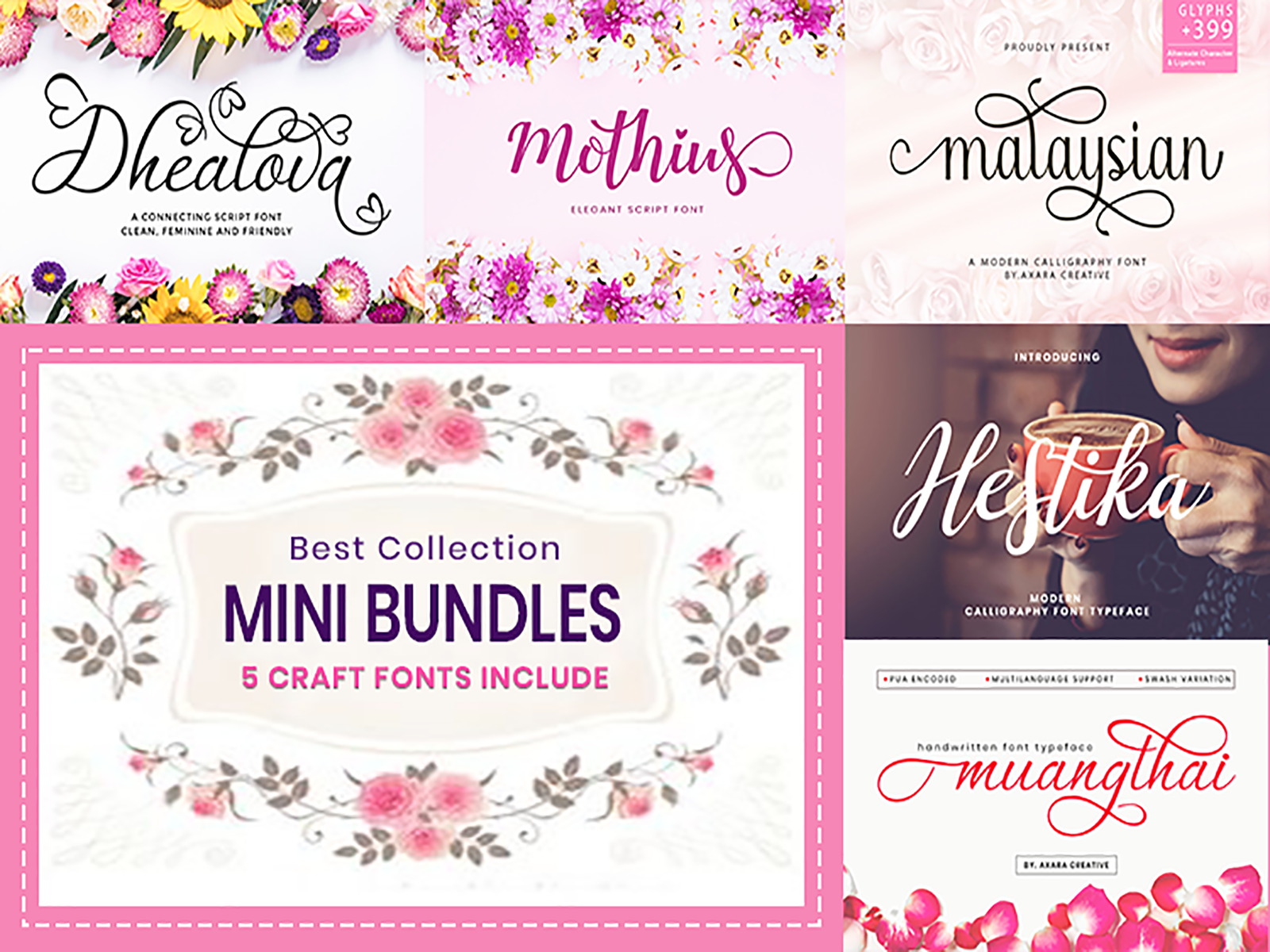
The bundle contains 5 fonts. This is a collection of some of Craft fonts in the fontbundle store that I sell in one package at a special price only $1 per fonts.
This fonts is ideal for crafting, branding and decorate your any project. You can create a logo or beautiful frame for your home. Or just use for your business, book covers, stationery, marketing, and more.